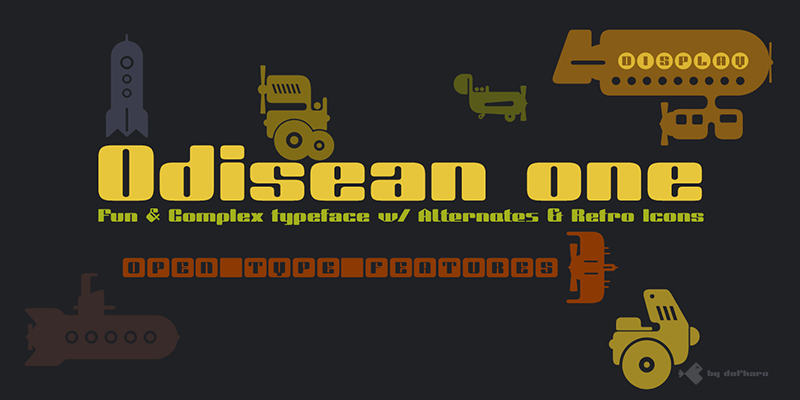
Preview and download Odisean One Font. Created by deFharo in Fancy Retro styles with Free for personal use license.
The Odisean One is designed for large sizes with retro style, including alternative lettering and retro transportation icons. Odisean One will transport you to a bygone era with its retro charm, offering you alternative lyrics that evoke the aesthetic of the golden and happy years. ============================= FULL VERSIONS & LICENSES: https://defharo.com/fonts/odisean/ ============================= |